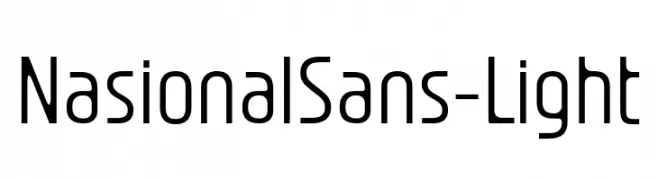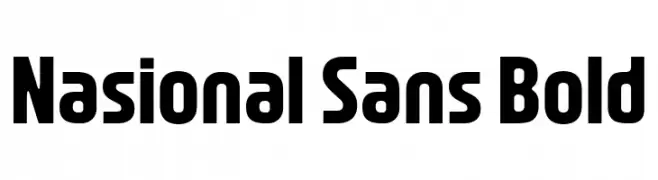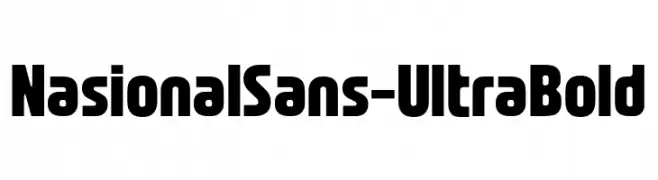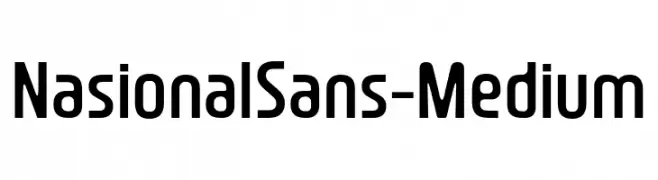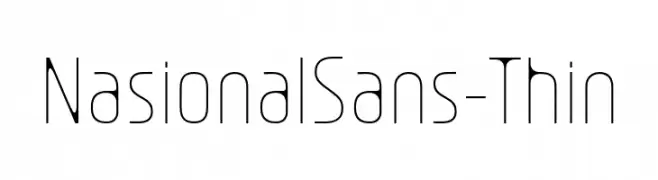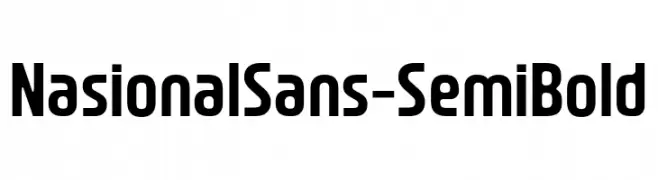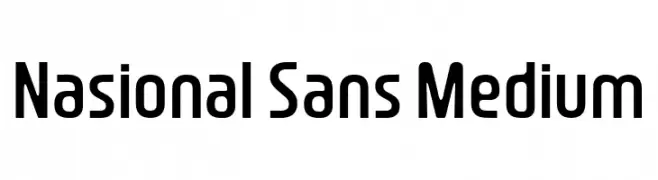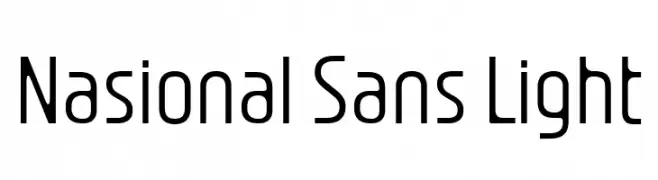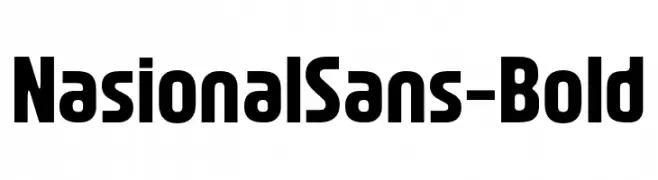
A modern, geometric sans-serif font with clean lines and uniform width.
A playful, hand-drawn font with tall, narrow letters and a modern, informal style.
A playful, handwritten-style font with a dynamic and quirky appearance.
A playful and bold font with a hand-drawn, whimsical style.
A modern, light sans-serif font with a clean and minimalistic design.
A bold, modern sans-serif font with strong geometric shapes.
A playful, casual handwritten font with smooth, flowing lines and a relaxed appearance.
A bold, modern sans-serif font with strong, thick strokes.
A modern, medium-weight sans-serif font with a clean and versatile design.
A sleek, modern font with thin, elegant lines and a minimalist design.
A modern, semi-bold sans-serif font with clean lines and rounded edges.
A modern, medium-weight sans-serif font with a clean and versatile design.
A modern, light sans-serif font with a clean and streamlined appearance.
An elegant, flowing script font with interconnected, cursive letters.
A bold, modern sans-serif font with strong geometric shapes.
A bold, impactful sans-serif font with thick, uniform strokes and rounded edges.
A playful, casual handwritten font with smooth, flowing lines.
A modern, thin sans-serif font with sleek, elongated characters.
A sleek, ultra-light sans-serif font with a modern and minimalist design.
A sleek, modern sans-serif font with thin, elongated letterforms.
A fluid, cursive font with a natural handwriting style.
A modern, geometric sans-serif font with consistent stroke width and clear character distinction.
A modern, geometric sans-serif font with clean lines and uniform strokes.
A modern, semi-bold sans-serif typeface with clean lines and balanced proportions.
A casual, elegant handwritten font with fluid, connected strokes.
A sleek, ultra-light, and modern sans-serif font with minimal stroke contrast.
A bold, modern sans-serif font with strong, uniform strokes.
A bold, sans-serif font with thick, uniform strokes and a modern design.
A bold, modern sans-serif font with geometric lines and strong presence.
A bold, geometric sans-serif font with a modern and clean design.
A bold, modern typeface with geometric structure and consistent stroke widths.
A sleek, ultra-thin font with a modern, minimalist design and geometric structure.
A modern, clean sans-serif typeface with uniform strokes and slightly condensed characters.